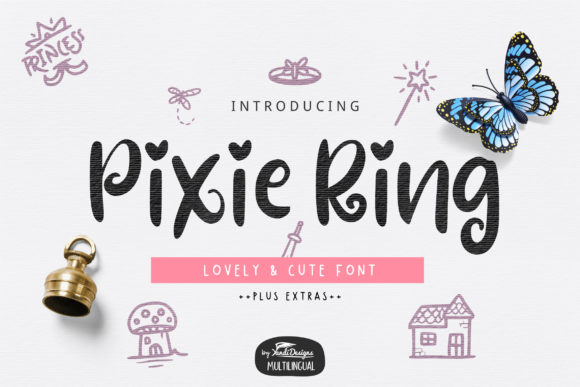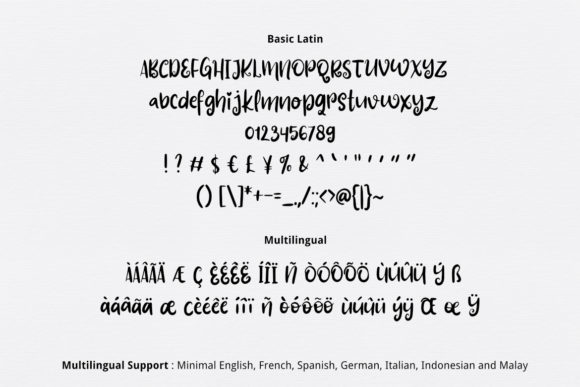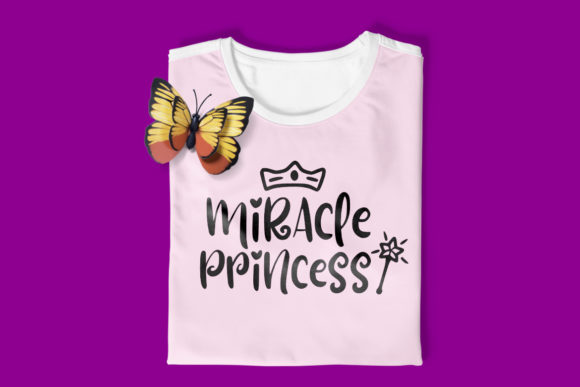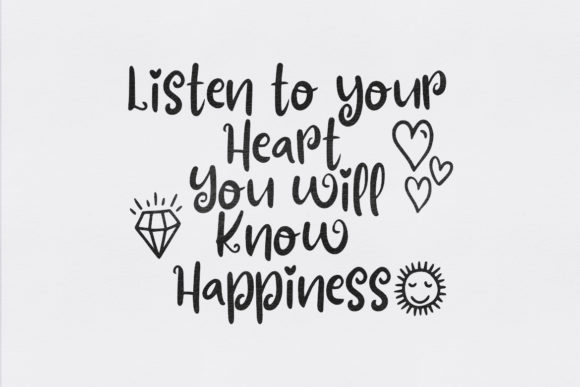
Pixie Ring Font: A Cute Sans Serif for Cricut & Playful DIY Designs
About the Pixie Ring Font
Meet Pixie Ring Font, a stunning font that brings a touch of elegance and professionalism to any design. Pixie Ring is a playfully cute and lovely sans serif font with cute dingbats alternates. It will give you a wide range of designing possibilities, and will make any arts & crafts project stand out!
Pixie Ring’s playful nature makes it ideal for children’s books, branding for sweet treats or artisanal crafts, and projects requiring a touch of whimsy. It excels in headlines, short text blocks, and logos, where its charming details shine. Avoid using it for large bodies of text or UI elements; its unique character might prove distracting for extended reading.
Pairing Pixie Ring with a clean sans-serif like Open Sans for body copy provides a strong contrast, balancing its playful energy with readability. For a more sophisticated feel, consider pairing it with a delicate serif font like Lora. Alternatively, a geometric sans-serif such as Montserrat adds a modern touch without overpowering Pixie Ring’s charm.
Pixie Ring’s overall personality is best described as cheerful and friendly, yet sophisticated enough to avoid appearing childish. Its versatility allows for a range of applications, provided the context complements its lighthearted and slightly quirky style.
Pixie Ring Font Usage Examples
Pixie Ring Font Example